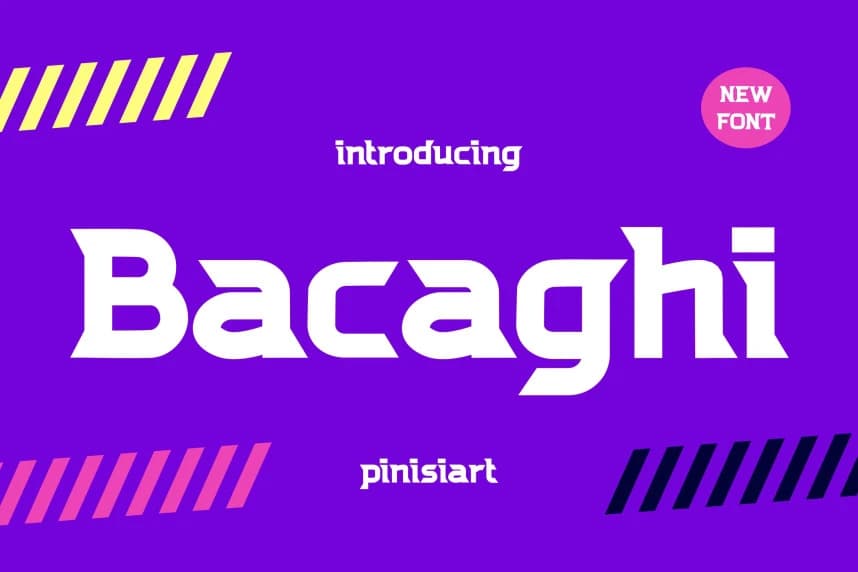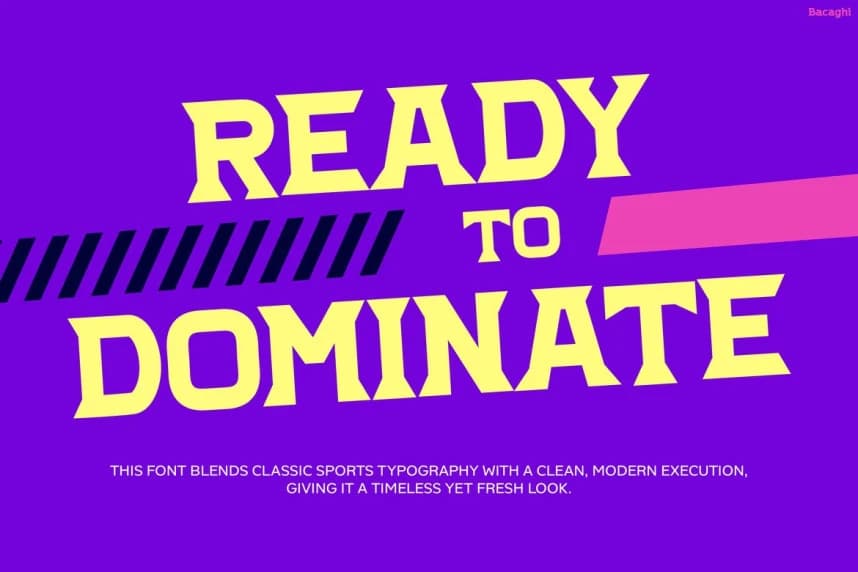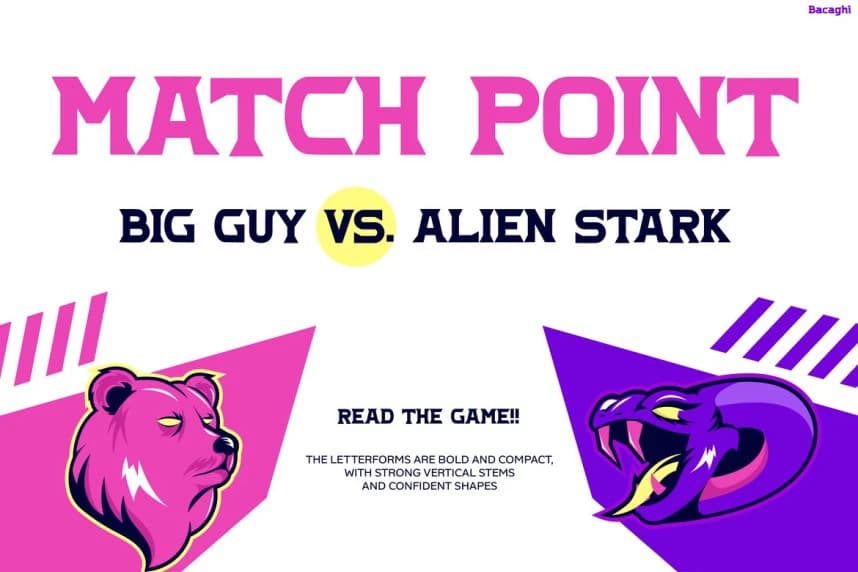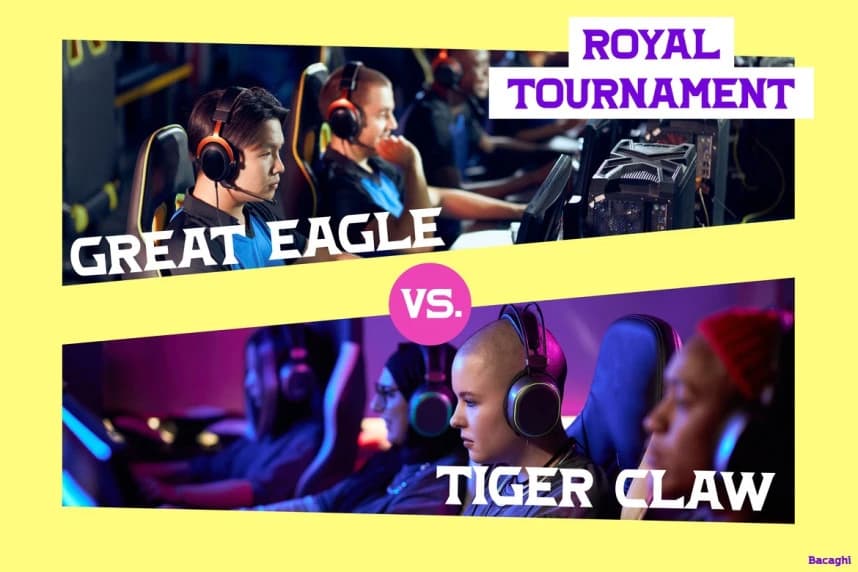
Bacaghi Font
Bacaghi Font is a bold and dynamic typeface built to deliver intense energy and competitive spirit. At first glance, its sharp angles and futuristic shapes create a powerful and aggressive visual style. Moreover, the strong geometric structure gives it a modern esports vibe that feels fast, loud, and impactful.